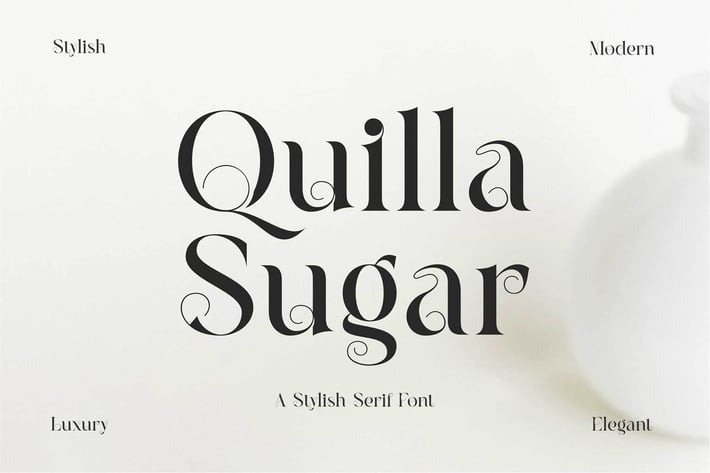
Quilla Sugar Stylish Serif Font
Quilla Sugar is a serif font with a modern style. Like other serif fonts, Quilla Sugar has a high readability level. The font still looks very sharp, although its size is small. Therefore, Quilla Sugar, you can read long paragraph text like an article that uses this font type.
Quilla Sugar is not only a delicate font that ensures we read well and clearly but also brings us a classy and new modern appearance. You can feel an elegant and beautiful stroke starting from the italic style.
The regular font, like the italic feature, is so good and looks artistic with its various thicknesses on every curve of the lines.
Last but not least, the Quilla Sugar font is undoubtedly well-used for multiform business. Let's say you can use it for layout design, logo font, magazine, headline, branding any business, and it is also good for quote font.
Quilla Sugar is not only a delicate font that ensures we read well and clearly but also brings us a classy and new modern appearance. You can feel an elegant and beautiful stroke starting from the italic style.
The regular font, like the italic feature, is so good and looks artistic with its various thicknesses on every curve of the lines.
Last but not least, the Quilla Sugar font is undoubtedly well-used for multiform business. Let's say you can use it for layout design, logo font, magazine, headline, branding any business, and it is also good for quote font.